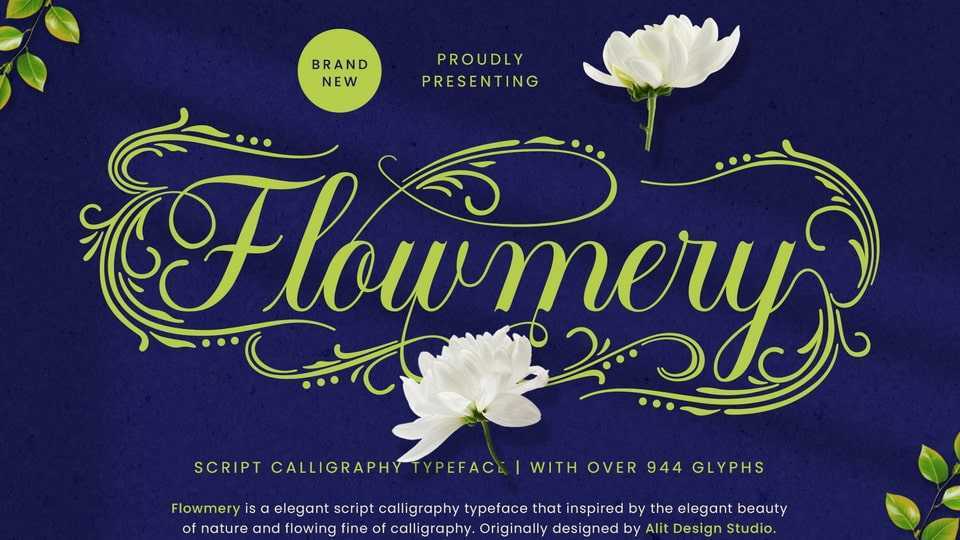
Download Flowmery font, an elegant and flowing script typeface that finds its inspiration in the delicate beauty of nature and the timeless art of fine calligraphy.